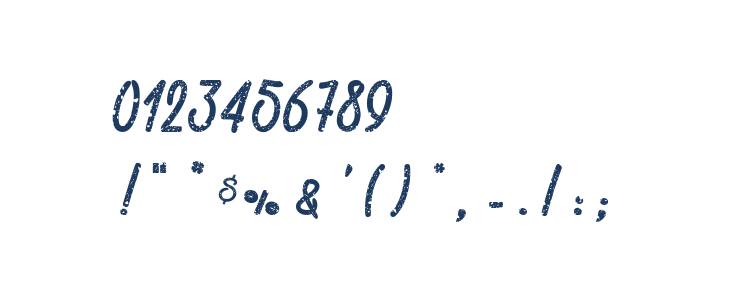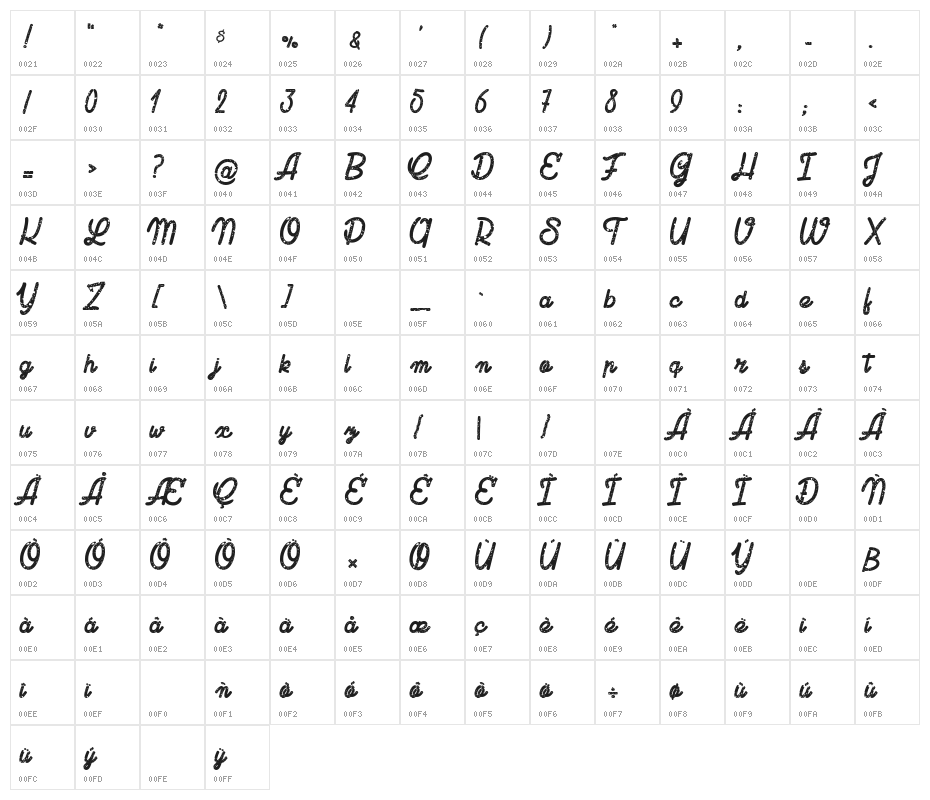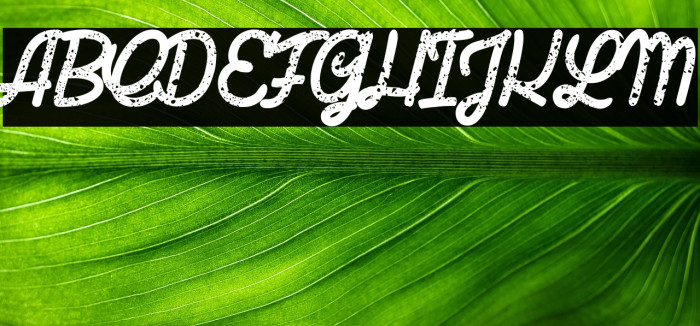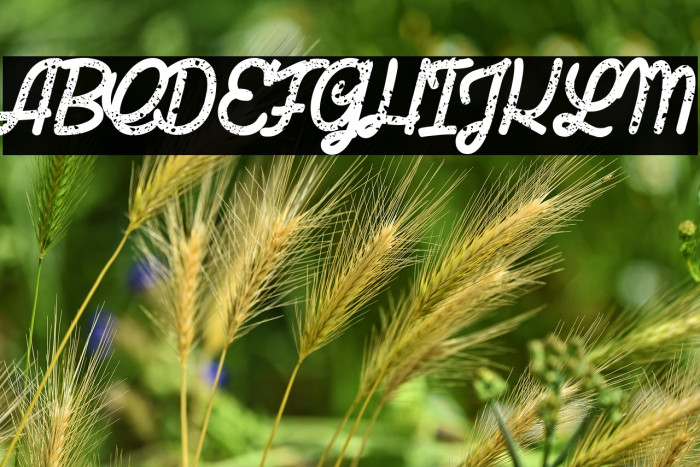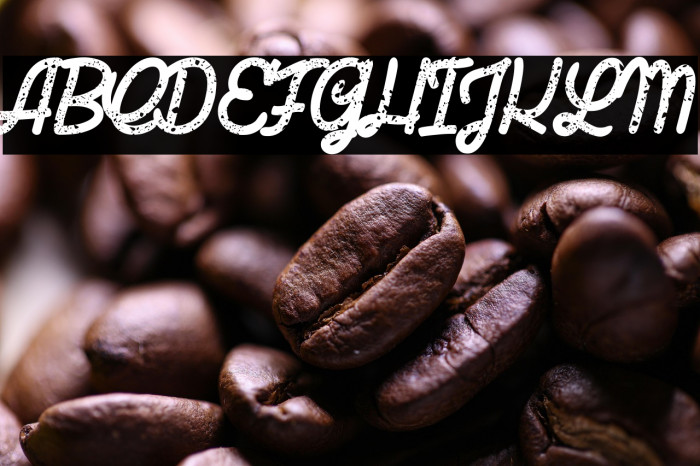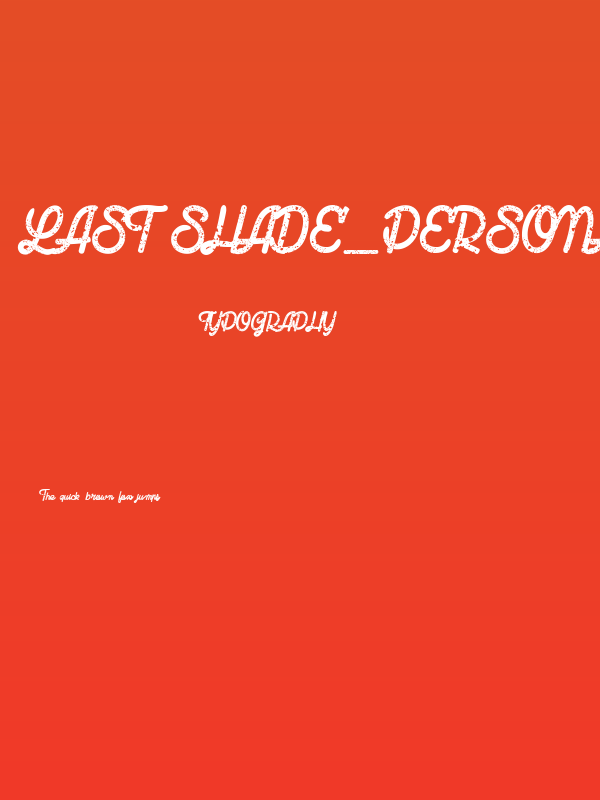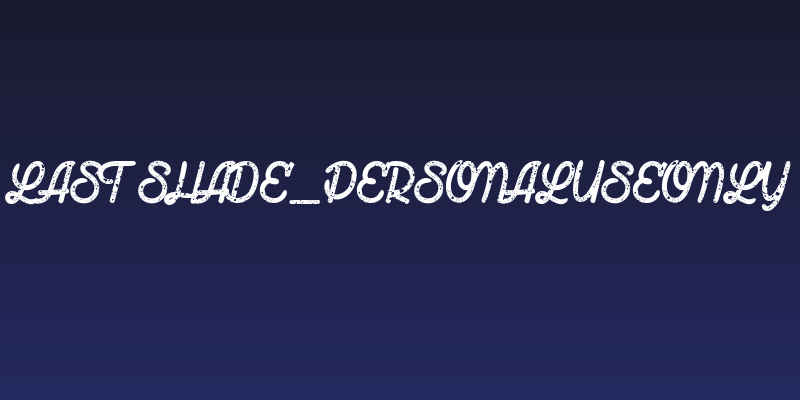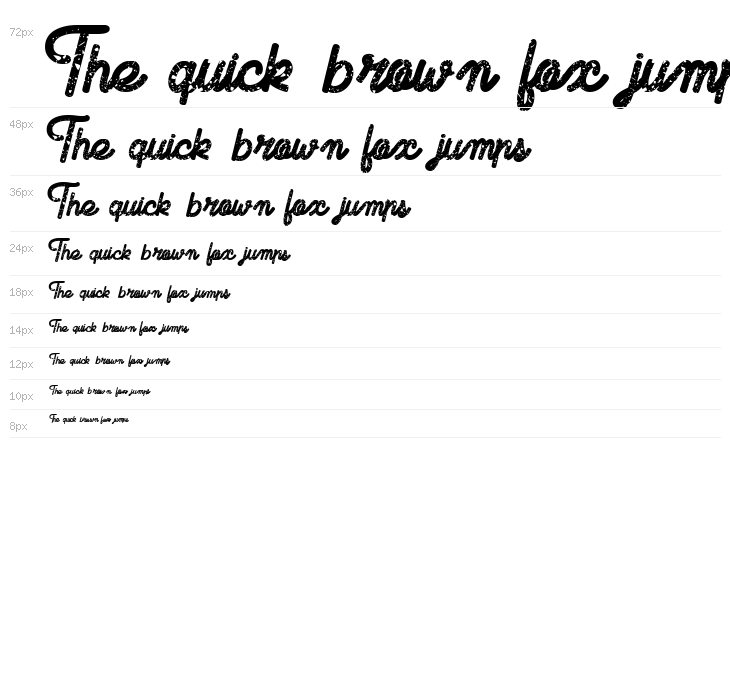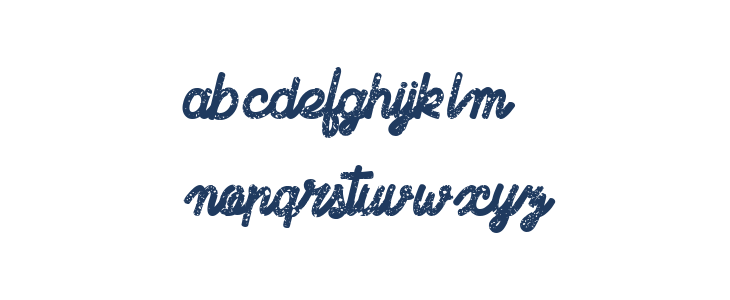
Last Shade_PersonalUseOnly Font
Last Shade_PersonalUseOnly Description
This font features a bold, textured script style that mimics the appearance of a hand-painted sign. The letters are connected in a flowing manner, giving it a dynamic and lively feel. The texture within each character adds a distressed, vintage look, making it ideal for projects that require a rustic or handcrafted aesthetic. The uppercase letters are bold and prominent, while the lowercase letters maintain a consistent flow, enhancing readability. Numbers and special characters are designed to match the overall style, ensuring a cohesive appearance across different uses.
| Categories | Script |
| Overall Style | Vintage |
| Use Case | Logos, Headlines, Posters |
| Proposed Projects | Ideal for branding, packaging, posters, and any design requiring a rustic or vintage touch. |